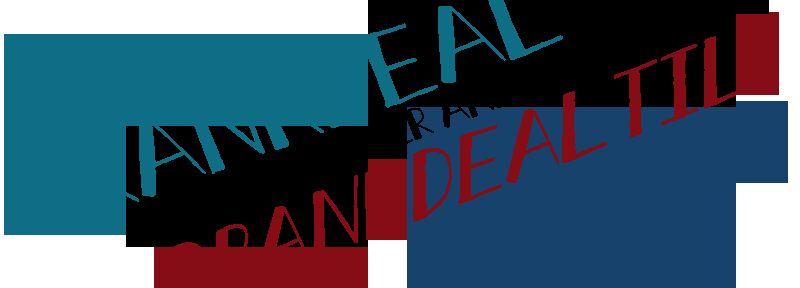
Crankdeal Tilt by Andy Greer and Max Infeld of Xerographer.com is a free graffiti script with a sharp, improvised silhouette. Its letters swing between broad wedges and hairline strokes, with uneven angles and abrupt joins that make the writing look cut and scrawled at once.
Against torn paper, spray textures, or rough illustration, the lettering can become part of the artwork rather than a separate caption. That quality suits concert posters, album packaging, skate merchandise, and magazine cover lines, especially when the editorial theme leans toward street culture.